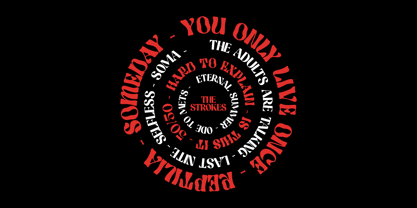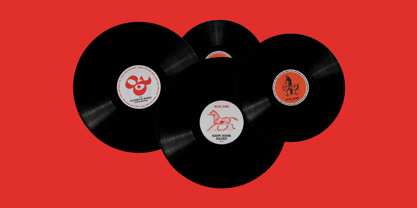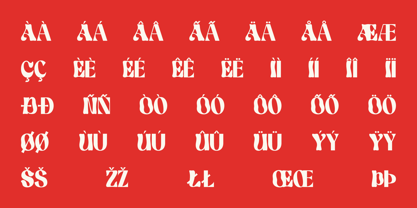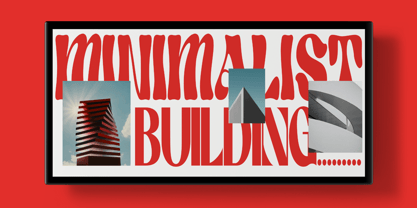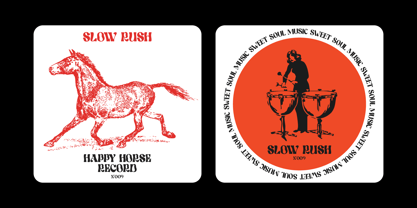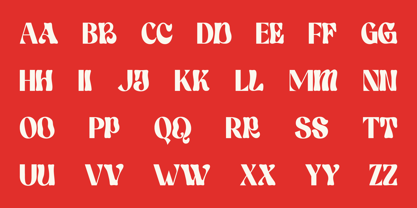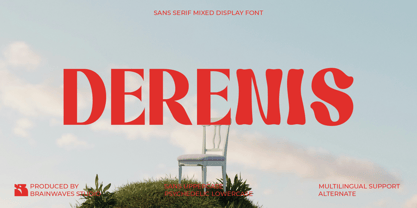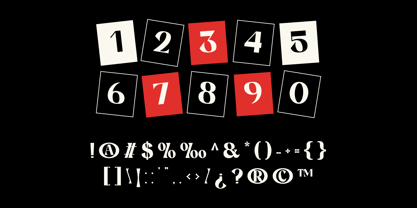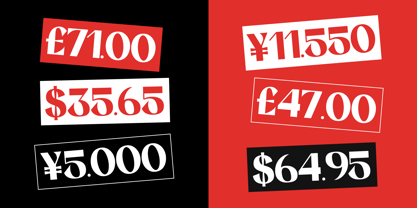
Derenis
The Derenis Font Family was designed by Lucky Fitriadi and published by Brainwaves Studio. Derenis contains 2 styles and family package options. More about this family
Meet Derenis, a font that's both a retro dream and a modern statement. This is a one-of-a-kind display font that beautifully blends two styles into one. The uppercase letters are a clean, bold serif, perfect for a professional, elegant touch. The lowercase letters are where the magic happens—they're a groovy, flowing psychedelic serif, giving your designs a truly unique and artistic flair.
This unique combination allows you to create incredible visual stories. Use the clean uppercase for a solid headline and the wavy lowercase for a funky subtitle. Whether you're designing for a music brand, a vintage clothing line, or a bold social media campaign, Derenis helps your work feel creative, memorable, and fun. It's the perfect way to get that retro-modern look everyone is talking about.